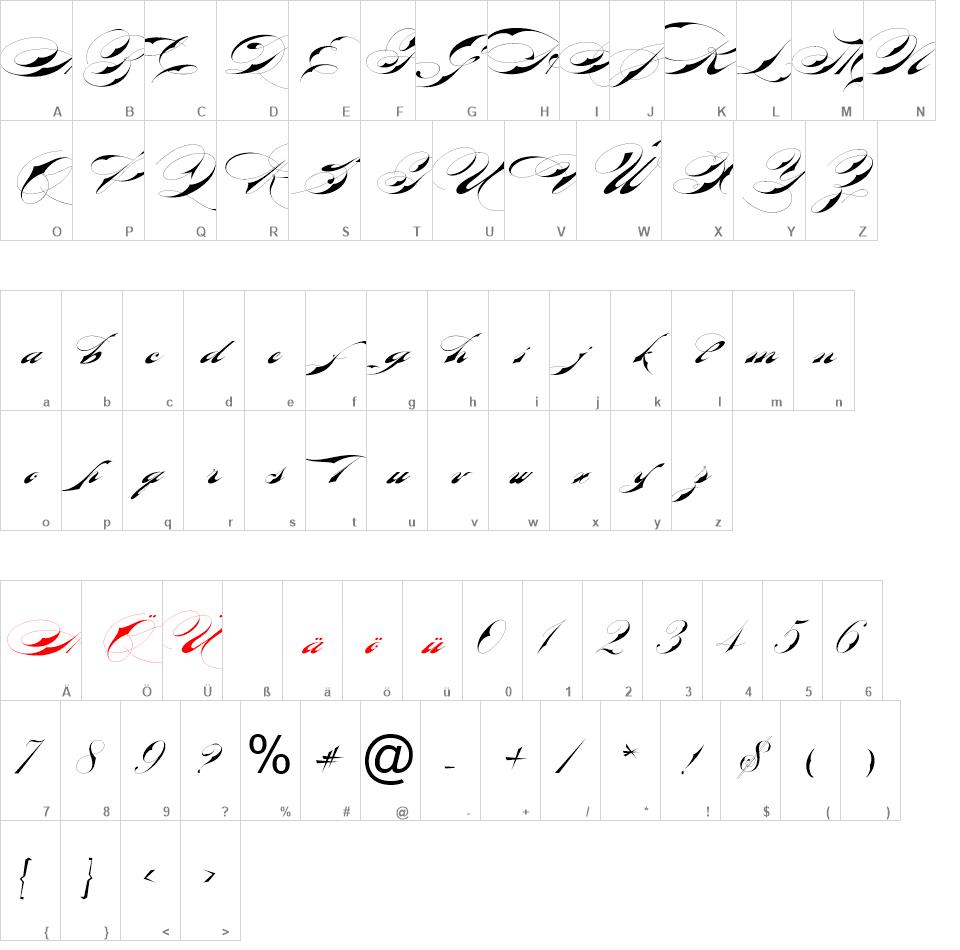
Bradstone-Parker Script Limited Free Version
Bradstone-Parker Script
Iza and Paulo W (Intellecta Design) are proud to announce Bradstone-Parker script Script. A free interpretation of the golden age writing style from American classical penmanship. Inspired in Zaner and his contemporaries Bradstone-Parker has evocative (sometimes exaggerated) ligature forms and voluptuous forms.
This enhanced OpenType version is a complete solution for producing documents and artworks with a evocative and voluptuous style of calligraphic script:
- many stylistic alternates for each letter (upper- and lowercase), accessed with the glyph palette;
- ornaments and tails (“rasgos”) in the typical style from the XIX to the first decades of the XX century writing style, all accessed with the glyph palette using the Ornaments feature;
- an extensive set of ligatures (100s of contextual alternates ligatures) providing letterform variations that make your designs really special, resembling real handwriting on the page;   More...